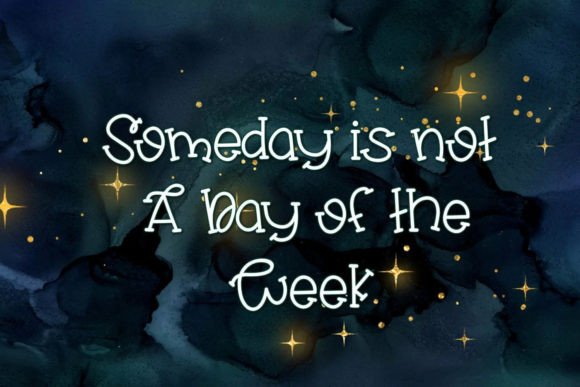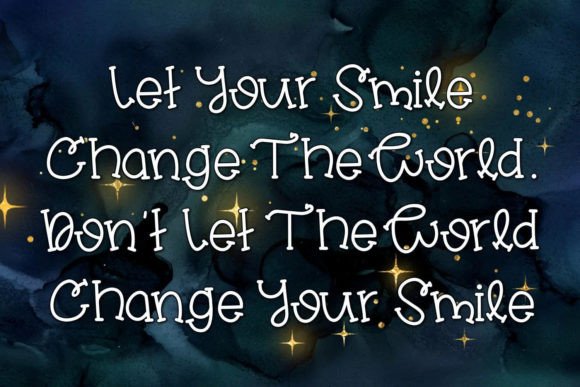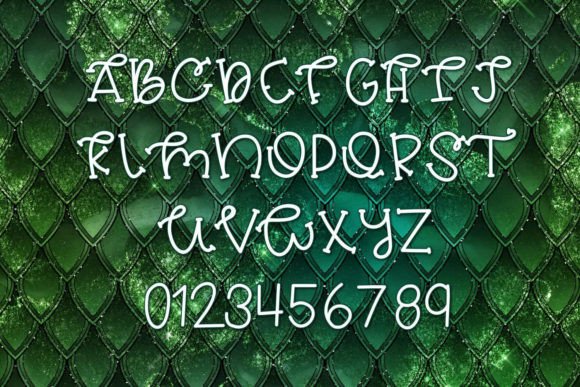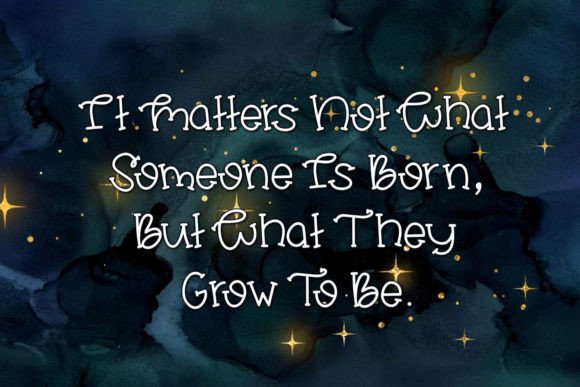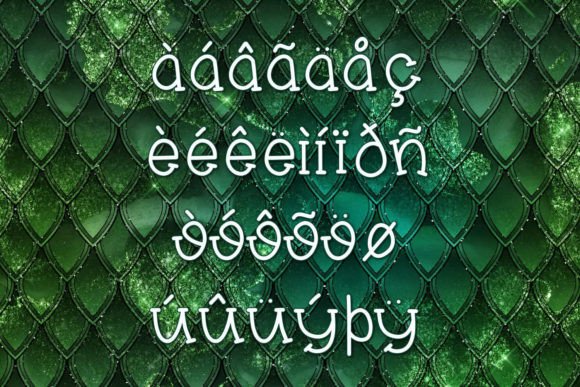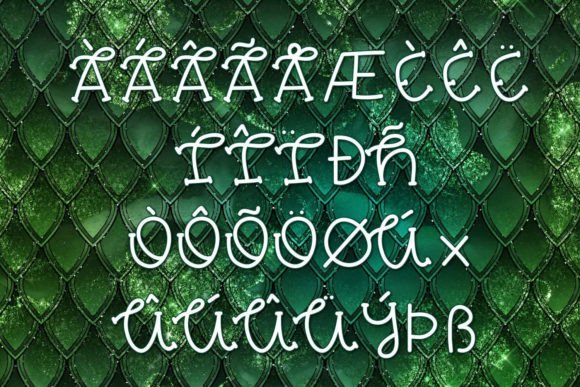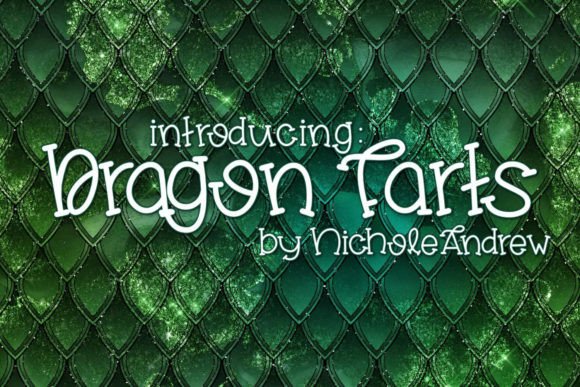
Introducing Dragon Farts Font: The Perfect Handwritten Font for Designers and Crafters
Are you tired of using the same old fonts in your designs and crafts? Look no further! We’re excited to introduce Dragon Farts, a handwritten font that’s sure to add a touch of personality and whimsy to your projects. In this article, we’ll take a closer look at the features of Dragon Farts font and why it’s perfect for designers and crafters alike.
What is Dragon Farts Font?
Dragon Farts font is a handwritten font that’s designed to be both adorable and quirky. With its thicker line and unique flair, this font is sure to stand out in any design or craft project. Whether you’re creating signs, cards, or other materials, Dragon Farts font is the perfect choice for adding a personal touch.
Features of Dragon Farts Font
So, what makes Dragon Farts font so special? Here are just a few of its key features:
- Thicker line: Dragon Farts font features a thicker line that’s perfect for cutting machines. This means you can use it to create bold and eye-catching designs that are sure to grab attention.
- Adorable extras: Some letters in the Dragon Farts font feature adorable quirky flair, adding personality and uniqueness to your designs. These extras are sure to make your projects stand out from the crowd.
- Handwritten style: Dragon Farts font has a handwritten style that’s perfect for creating personal and informal designs. Whether you’re creating a sign for a party or a card for a friend, this font is sure to add a touch of warmth and personality.
Why Designers and Crafters Love Dragon Farts Font
So, why do designers and crafters love Dragon Farts font? Here are just a few reasons:
- Easy to use: Dragon Farts font is easy to use, even for those who are new to design or crafting. Its simple and intuitive design makes it easy to get started and create beautiful projects.
- Versatile: Dragon Farts font is versatile and can be used in a wide range of projects, from signs and cards to scrapbooking and other paper crafts.
- Unique: Dragon Farts font is unique and sure to add a touch of personality to your designs. Its quirky flair and handwritten style make it a standout from more traditional fonts.
Using Dragon Farts Font in Your Designs and Crafts
So, how can you use Dragon Farts font in your designs and crafts? Here are a few ideas to get you started:
- Signs: Use Dragon Farts font to create eye-catching signs for parties, events, or your business.
- Cards: Add a personal touch to your cards with Dragon Farts font. It’s perfect for birthdays, holidays, or just because.
- Scrapbooking: Use Dragon Farts font to add a touch of personality to your scrapbooking pages.
- Paper crafts: Dragon Farts font is perfect for a wide range of paper crafts, from gift tags to invitations.
| Font Name | Dragon Farts Font |
| Author | Flourish And Pixels |
In conclusion, Dragon Farts font is a unique and versatile font that’s perfect for designers and crafters alike. Its thicker line, adorable extras, and handwritten style make it a standout from more traditional fonts. Whether you’re creating signs, cards, or other materials, Dragon Farts font is sure to add a touch of personality and whimsy to your projects. So why not give it a try and see what amazing creations you can come up with?